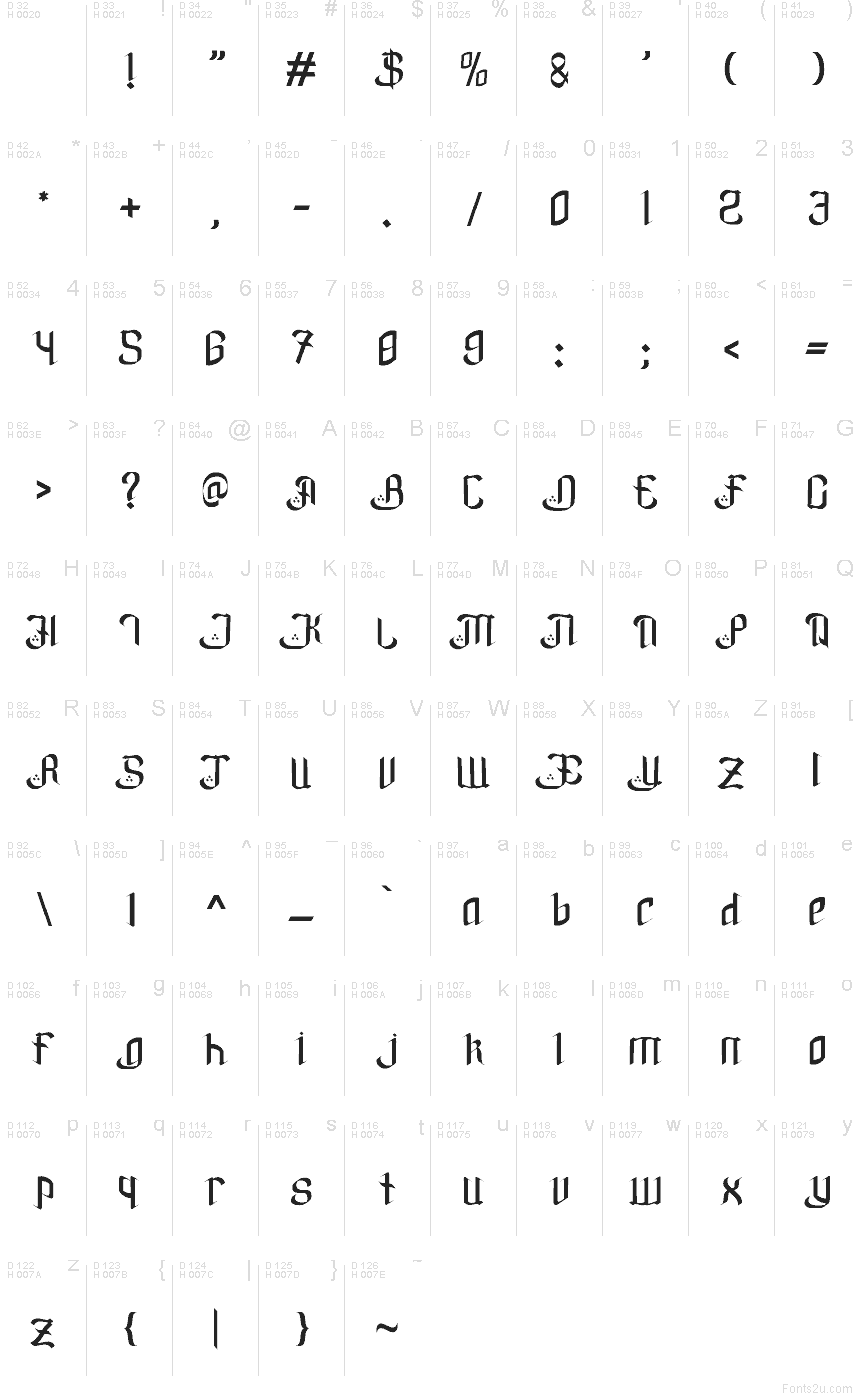
Basmallahu
Basmallahu font by Dhabee Studio is a free faux Arabic decorative typeface that instantly wraps your text in a Middle Eastern–inspired atmosphere. Its tall, tapering strokes, inky black curves, and subtly hooked endings echo calligraphic forms while still reading comfortably in Latin script. The rhythm feels continuous and flowing, like lettering brushed in one confident motion, making every word look intentional and ornate without becoming chaotic.
Using Basmallahu, you can bring a rich, exotic flair to restaurant logos, hookah lounge branding, festival posters, game titles, book covers, and packaging for teas or spices. This free font works beautifully when you set it large as a headline and support it with a clean geometric sans-serif for smaller text, letting Basmallahu handle the drama while the companion typeface keeps things clear and grounded.